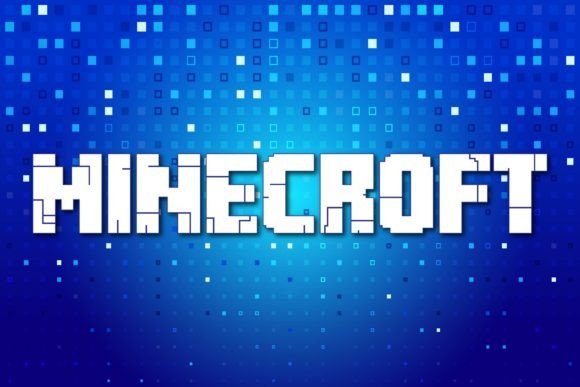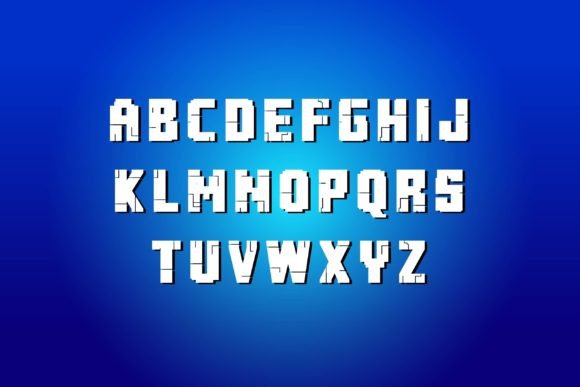
Minecroft Font
Minecroft is a fun and playful display font that transports your designs into a vibrant world of creativity and joy. With bold, dynamic letterforms and an adventurous spirit, it captures the essence of playfulness. Ideal for projects seeking a whimsical and lively aesthetic, Minecroft infuses a delightful and imaginative flair into your creative expressions.